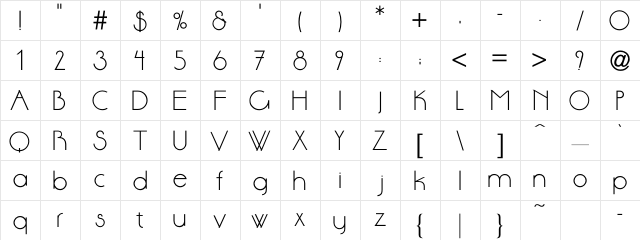
DS StandartC Regular
Design Context for DS StandartC Typeface
DS StandartC takes a measured approach to typography — its balanced proportions and neutral character make it a reliable workhorse for both digital and print work.